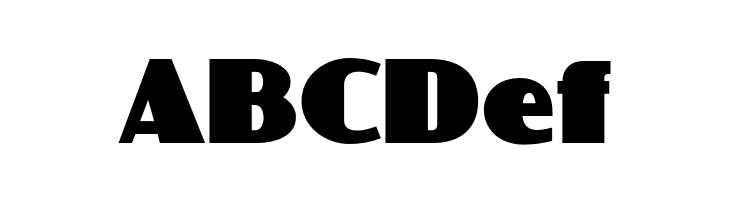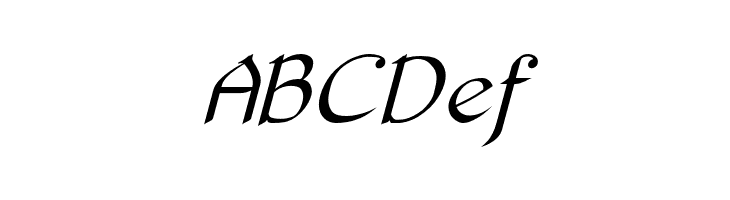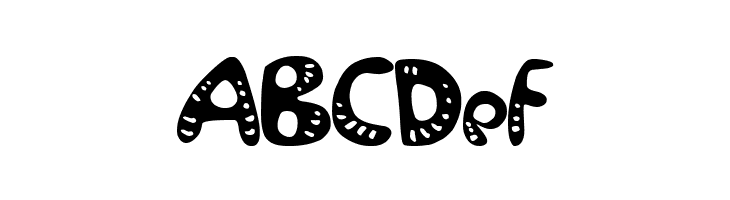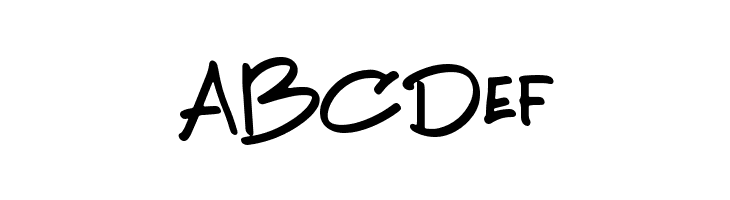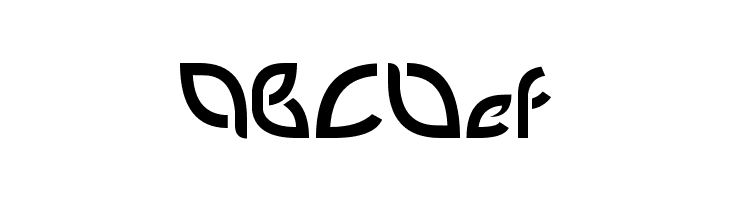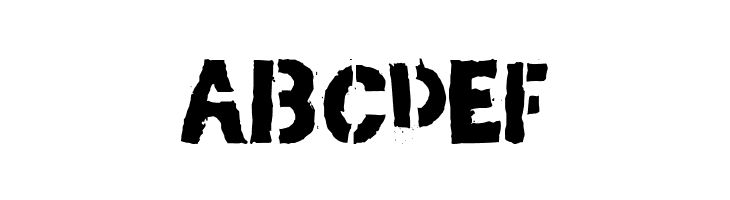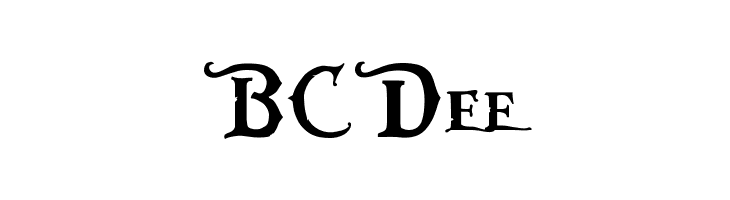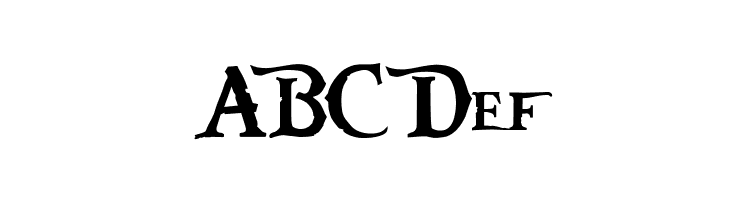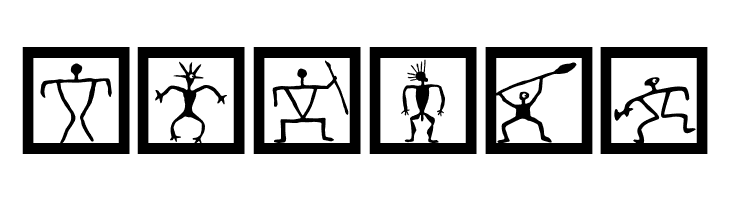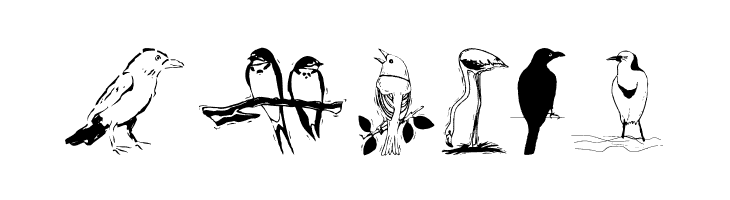
A playful, modern font with rounded edges and consistent stroke width.
A rugged, textured font with a chiseled, handcrafted appearance.
A bold, pixelated font with a retro-futuristic, grid-like design.
Minimalist pictogram icons representing people and activities.
A playful, handwritten font with bold, fluid strokes and a casual style.
A bold, modern sans-serif font with clean lines and excellent readability.
A modern, minimalist font with clean lines and consistent stroke width.
A quirky decorative dingbat font with playful abstract shapes.
A decorative font with festive Christmas-themed elements and geometric backgrounds.
A font inspired by ancient petroglyphs, featuring bold, abstract symbols in square frames.
Hand-drawn, petroglyph-inspired decorative font with tribal motifs.
A decorative set of pictographic symbols with an ancient script aesthetic.
A jagged, distressed font with a spooky, horror-themed aesthetic.
A bold, gothic font with sharp, angular edges and pointed serifs.
A collection of ancient Egyptian hieroglyphs, each symbolizing distinct ideas or sounds.
A bold, block-like font with a strong, modern presence.
A bold, modern font with thick strokes and a strong presence.
An expressive, hand-drawn font with a whimsical and artistic style.
A bold pictogram font with household and geometric icons.
A bold, geometric font with a strong and modern design.
A bold, adventurous font with sharp serifs and a distressed appearance, perfect for pirate-themed projects.
An ornate, decorative font with elaborate serifs and swashes.
Bird-themed decorative font with each character depicted as a unique bird illustration.
An elegant oblique font with smooth, flowing letterforms and a dynamic style.
A classic serif font with modern angular details and balanced curves.
A bold, distressed font with a hand-painted, rugged appearance.
A playful, handwritten font with a casual and energetic style.
A playful, dotted decorative font with bold, rounded characters.
An edgy, barbed wire-inspired font with sharp, angular lines.
A bold, condensed font with a strong vertical emphasis and cohesive design.